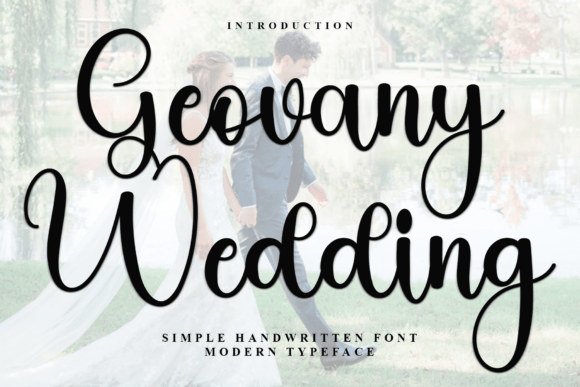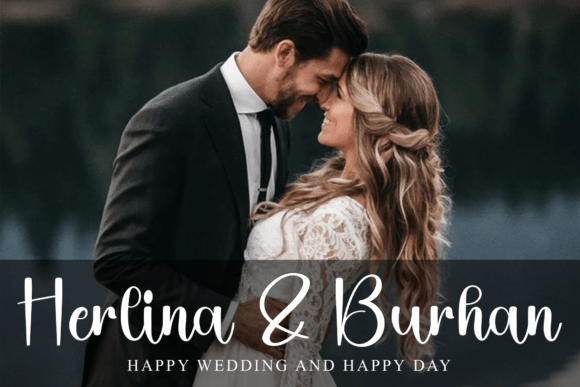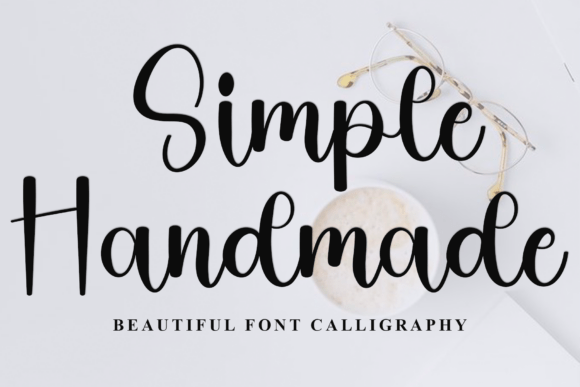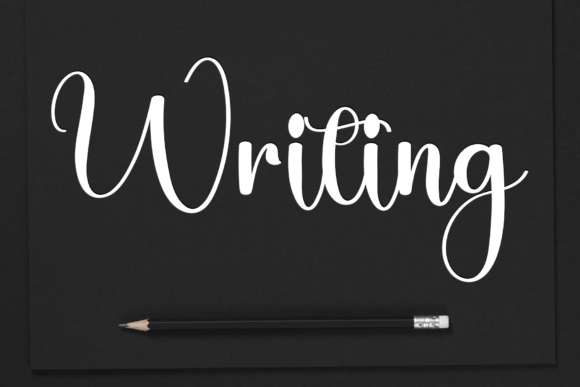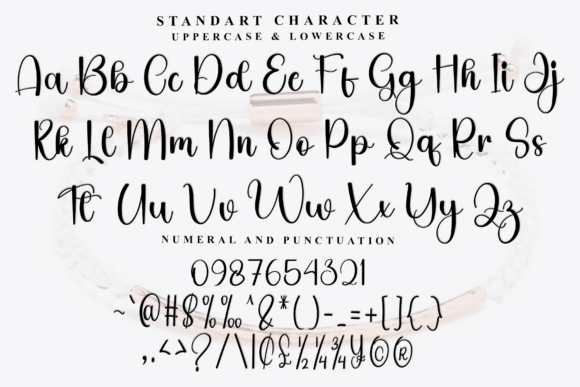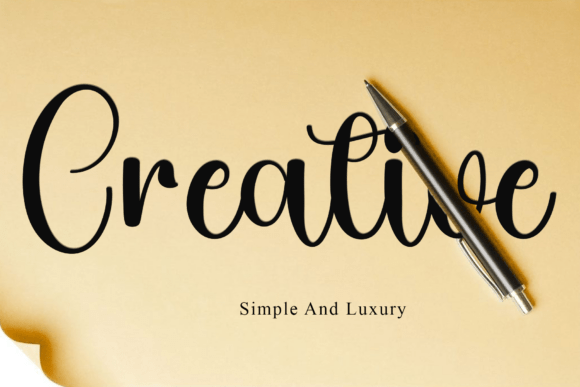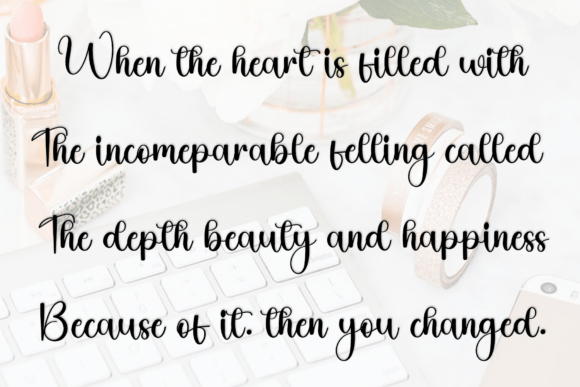
The Perfect Font for Your Next Masterpiece
Have you ever stared at a blank canvas, wondering which font will bring your design to life? The search for the perfect font can be a daunting task, but what if I told you that I’ve found one that will make your designs truly special?
Meet the Geovany Wedding Font, a beautiful and eye-catching font designed to add a soft, unique touch to your work. Its distinctive strokes give it a special character that makes it meaningful and versatile for future use. Whether you’re a designer, crafter, or artist, this font is perfect for bringing your ideas to life.
Geovany Wedding Font Key Features
- Font Family: Geovany Wedding Font is a script font designed for wedding invitations, stationery, and other special occasions.
- Character Count: The font contains 250+ characters, including uppercase and lowercase letters, numbers, and punctuation marks.
- Size and Resolution: Geovany Wedding Font is designed to be used at various sizes, from 10pt to 72pt, and is optimized for high-resolution printing (300 DPI) and digital use.
- Unique Characteristics: The font features elegant, cursive script with intricate details, making it perfect for adding a touch of romance and sophistication to wedding designs.
Geovany Wedding Font Review
Geovany Wedding Font is a beautiful script font that exudes elegance and sophistication. The flowing lines and delicate curves make it perfect for wedding invitations, wedding stationery, and other romantic occasions. ✨ The font’s versatility allows it to work well in various contexts, from modern to vintage.
Here are some of the strengths of Geovany Wedding Font:
- ✨ Elegant and sophisticated design
- ✨ Perfect for wedding-related projects
- ✨ High-quality font with a professional look
- ⚠️ Limited language support (may not be suitable for non-English languages)
- ⚠️ May not be suitable for digital displays or small text sizes
- ⚠️ Requires careful kerning and spacing for optimal results
Overall, Geovany Wedding Font is a beautiful and elegant script font that is perfect for wedding-related projects. While it has some limitations, it is a great choice for designers looking to add a touch of sophistication and romance to their designs.
Tips for Getting the Most Out of the Geovany Wedding Font
To get the most out of the Geovany Wedding Font, use it in conjunction with elegant and classic design elements, such as lace, flowers, and soft colors.
The Geovany Wedding Font is commonly used for:
- Wedding programs and menus
- Wedding websites and social media graphics
- Wedding signage and decor